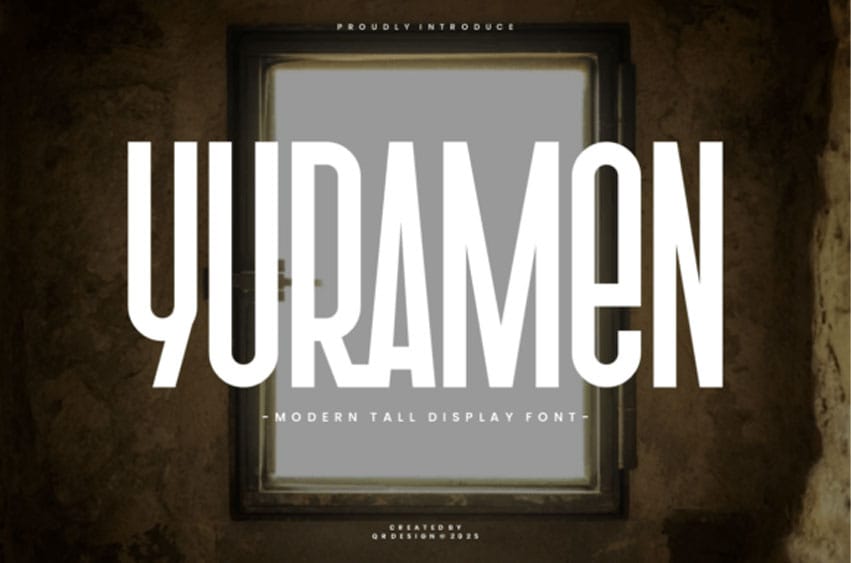
Yuramen Font
Yuramen Font is a sleek and modern tall display font crafted for bold visual impact. Its ultra-condensed form and sharp verticals make it ideal for headlines, posters, magazine covers, and urban branding.
With a minimalist aesthetic and confident presence, Yuramen stands out in both print and digital spaces.